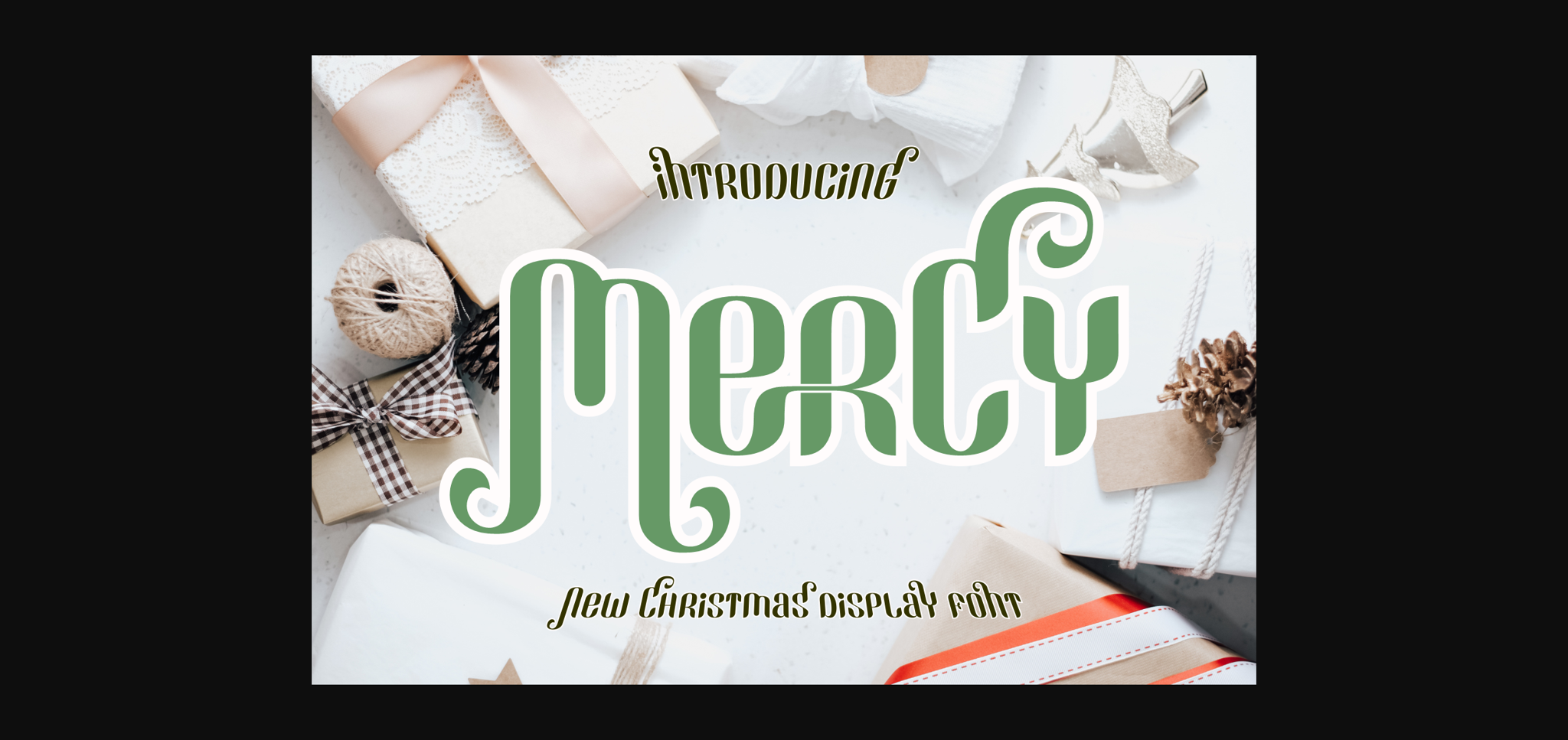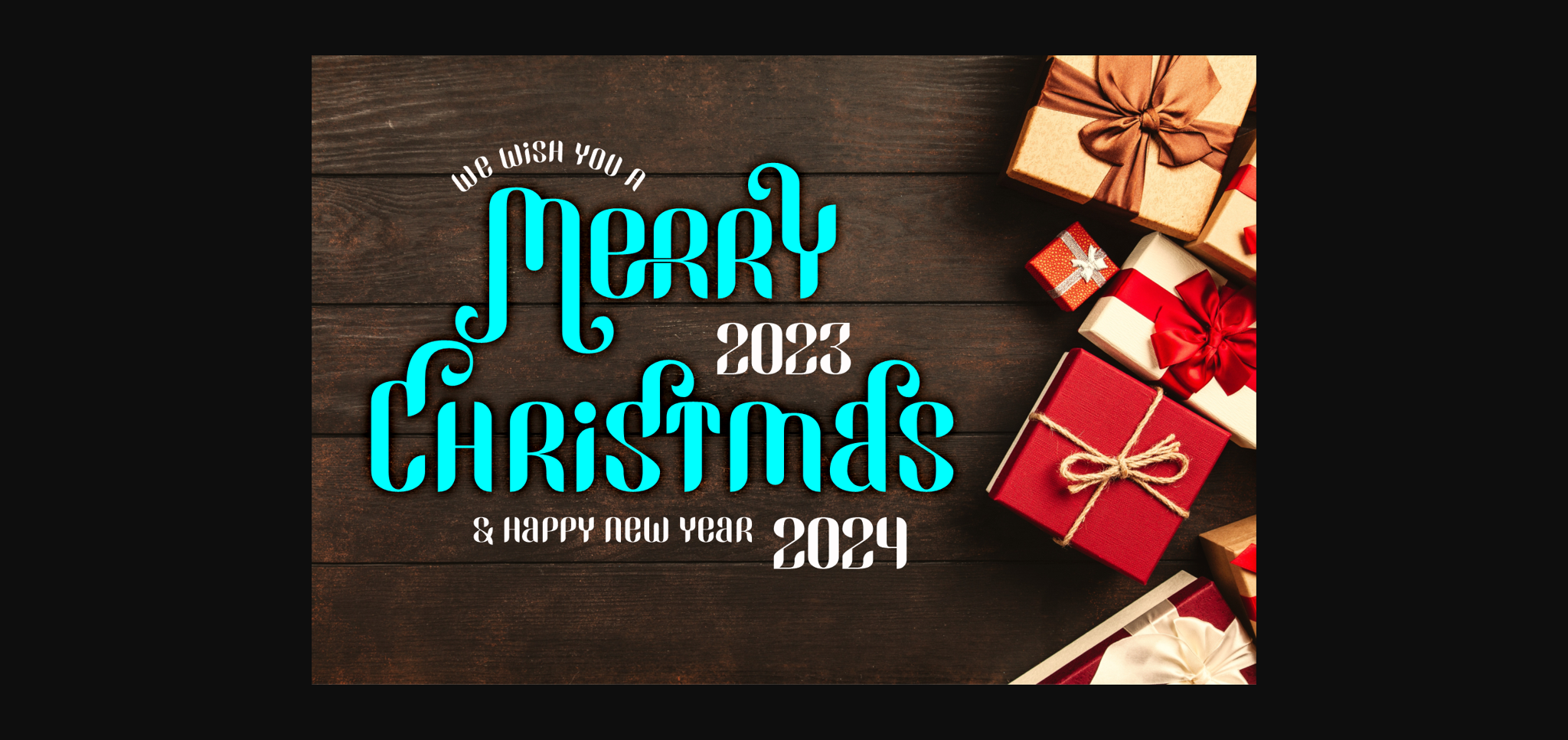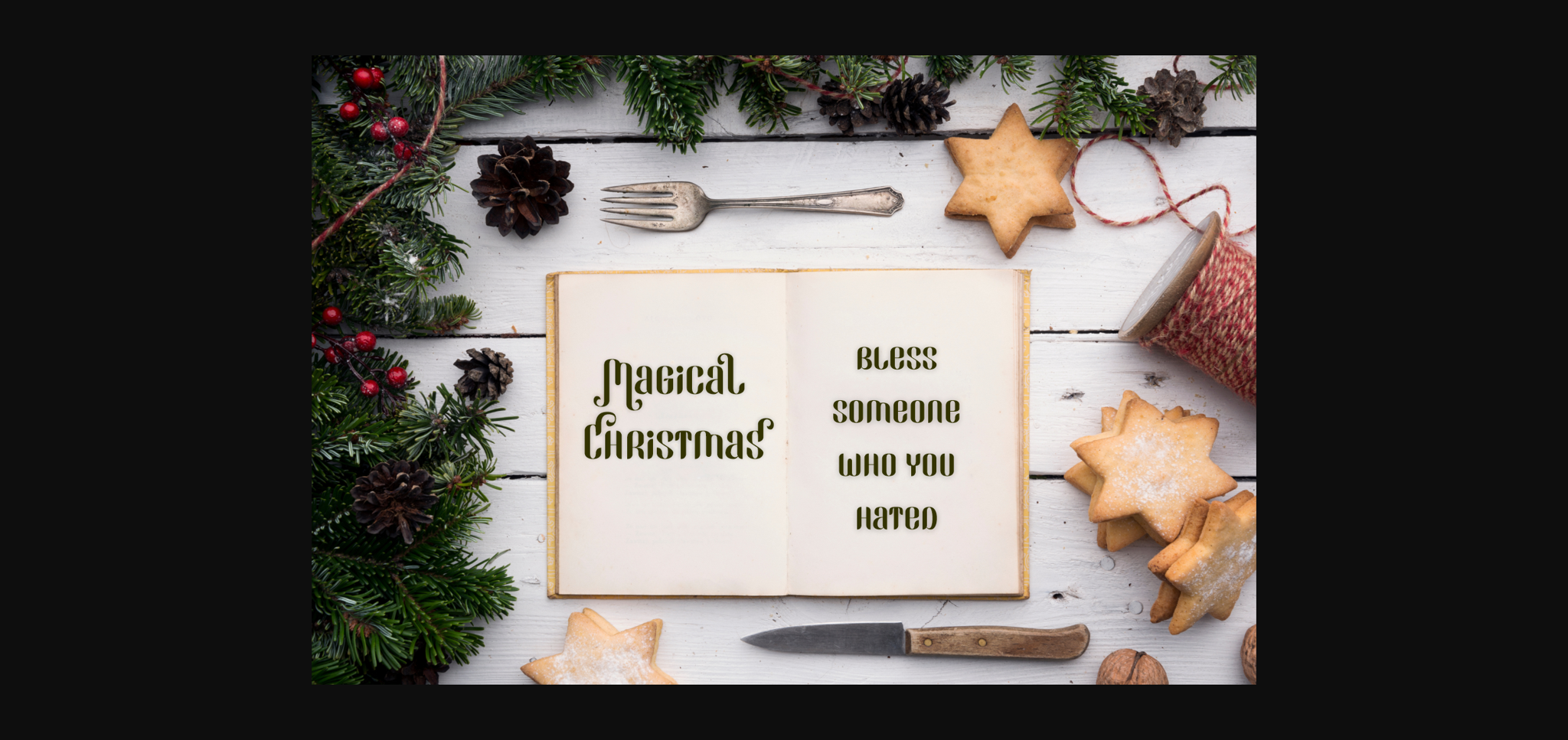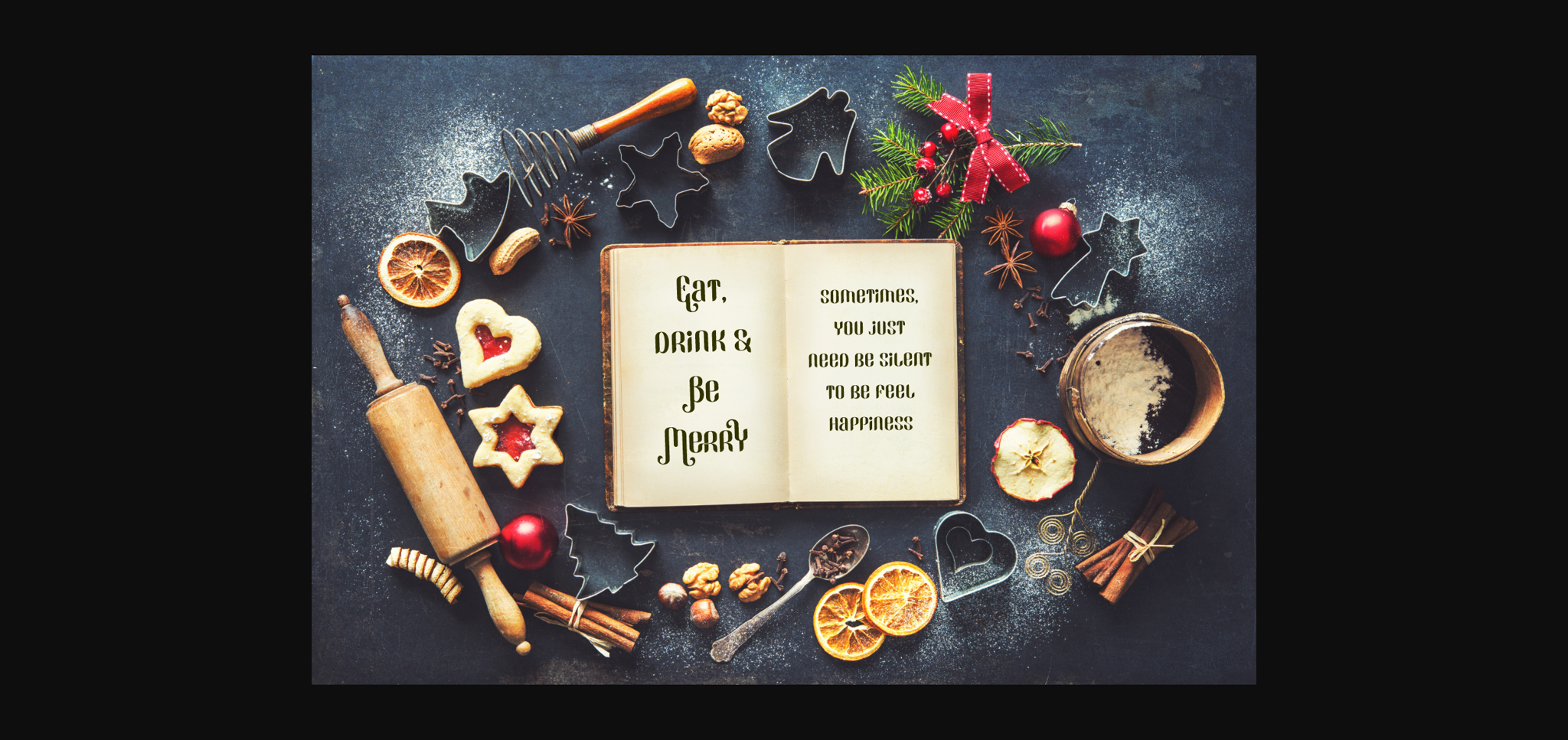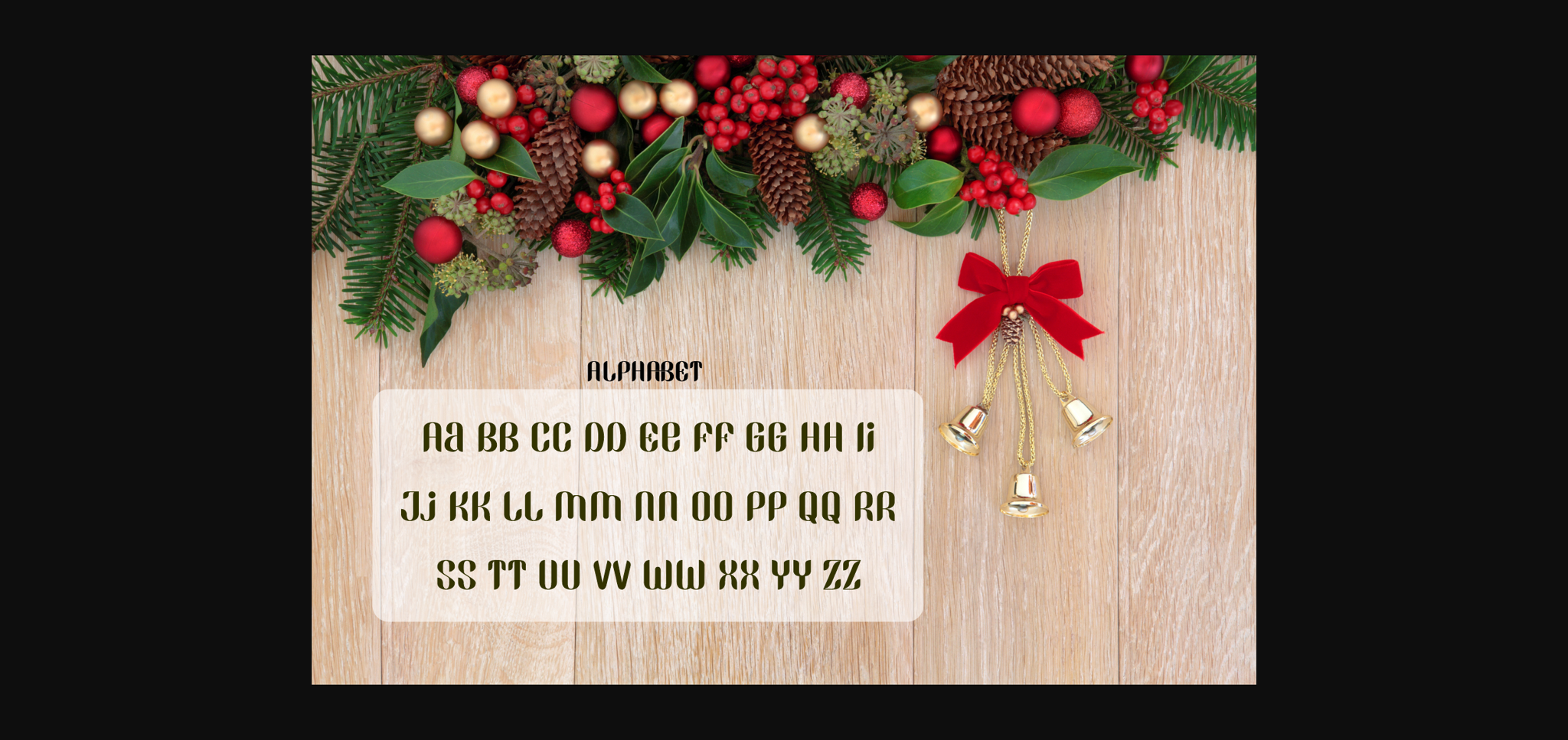
About Mercy Font
Mercy is a festive display Christmas font that exudes holiday charm. With its decorative and playful lettering, it’s the perfect choice for adding a touch of Yuletide spirit to your seasonal designs and greetings.